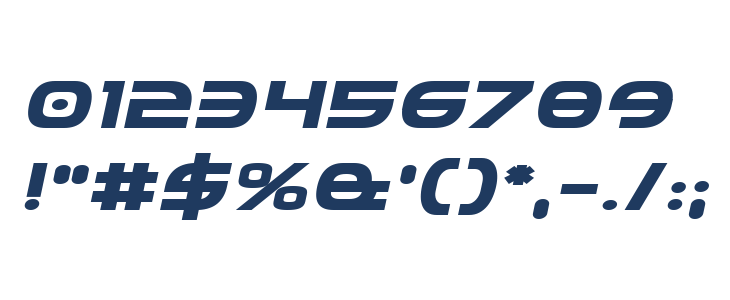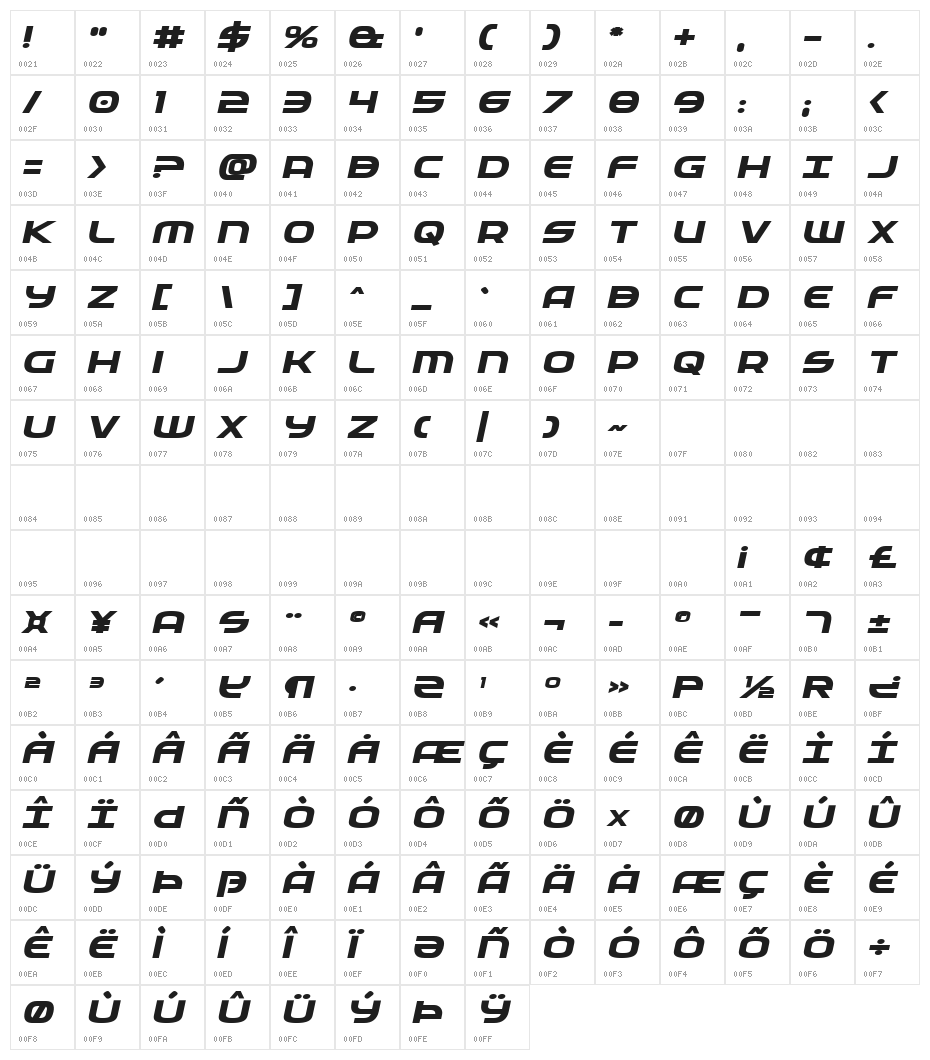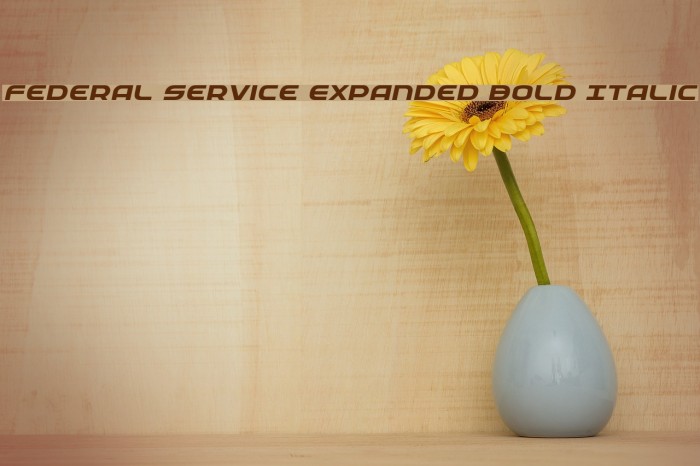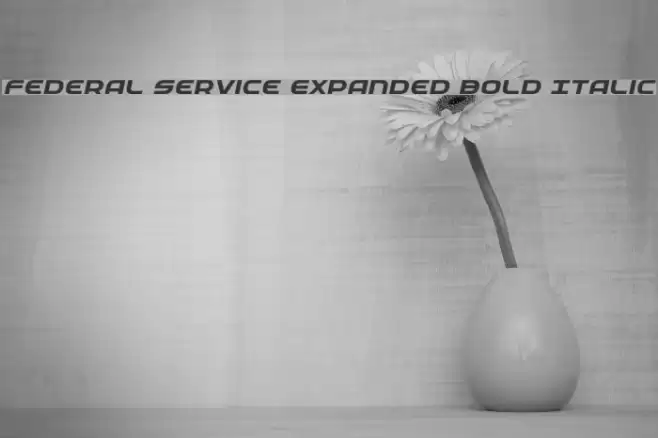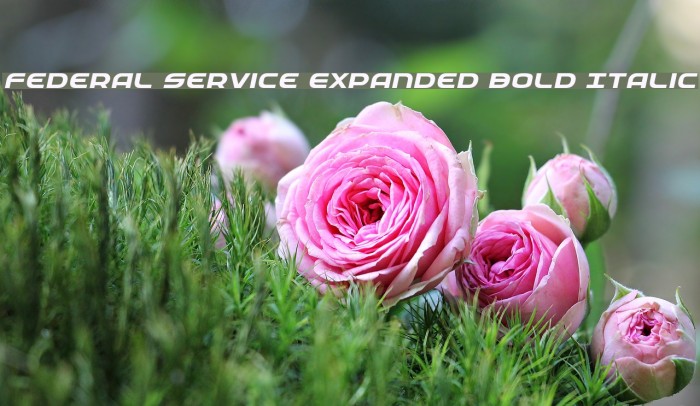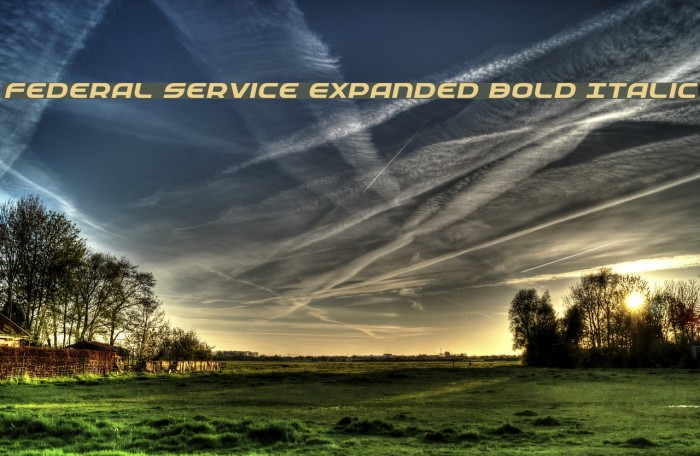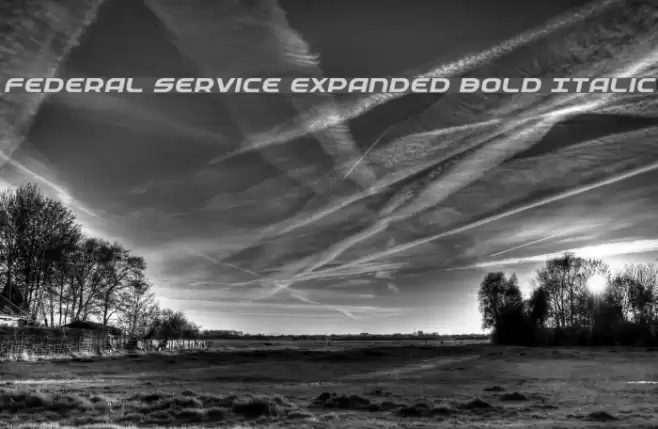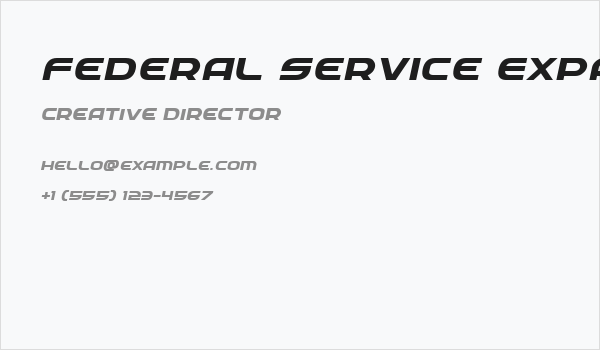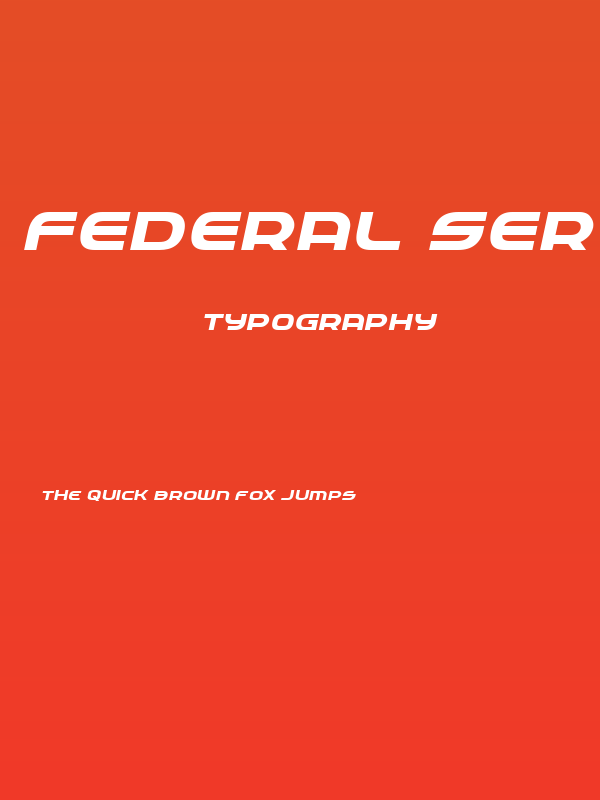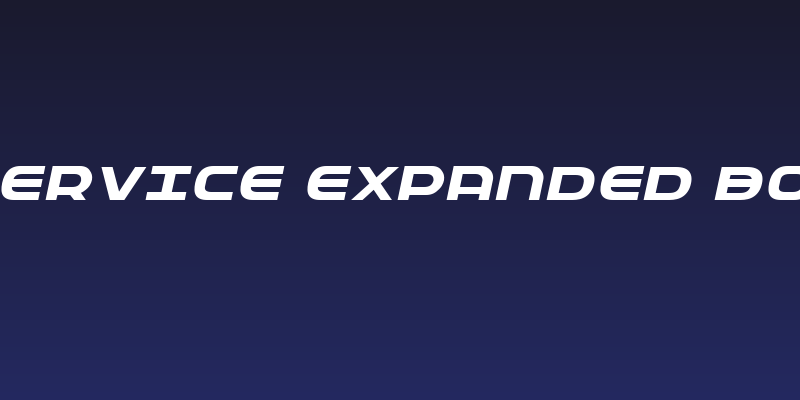
Federal Service Expanded Bold Italic Font
Federal Service Expanded Bold Italic Description
This typeface features a bold and italicized style with an expanded width, giving it a strong and dynamic presence. The characters are designed with a modern aesthetic, incorporating smooth curves and sharp angles that convey a sense of speed and movement. The uppercase and lowercase letters maintain a consistent design, ensuring readability while adding a unique flair. The numerals and special characters are crafted to match the overall style, making it suitable for a variety of applications. The font's expanded width allows for a more open and airy appearance, enhancing its legibility and making it ideal for headlines and display purposes.
| Use Case | Headlines, Logos, Display |
| Proposed Projects | Ideal for branding, advertising, sports team logos, and dynamic headlines. |